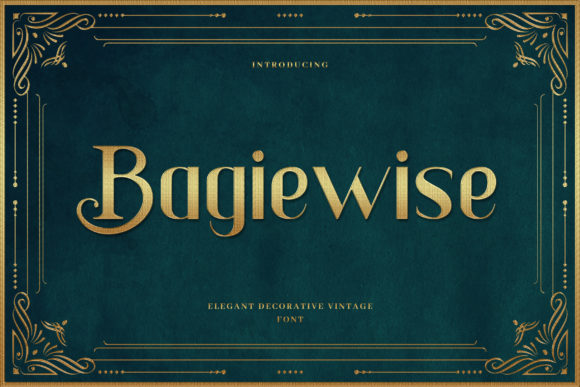
Bagiewise Font
Dive into the world of typography with the exquisite Bagiewise Font, a masterpiece crafted by the renowned naulicrea. This captivating serif font exudes an air of sophistication and elegance, making it the perfect choice for designers seeking to elevate their creations.
Bagiewise's graceful curves and sharp edges dance harmoniously on the page, creating a timeless charm that will captivate your audience. Its versatility knows no bounds, effortlessly adapting to a wide range of design projects, from captivating headlines to enchanting logos.
Indulge in the allure of Bagiewise and witness how its presence transforms your designs. Whether you're crafting an unforgettable brand identity or adding a touch of refinement to your personal projects, this font will elevate your work to new heights.